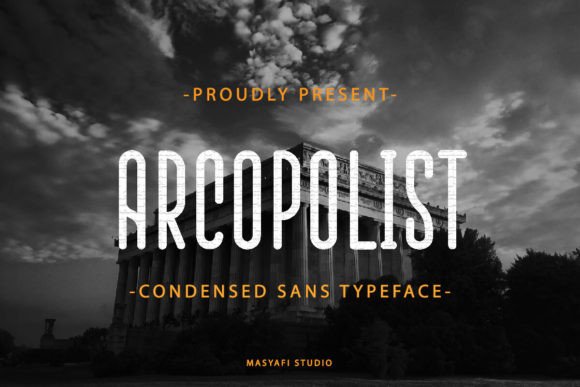
**Arcopolist: Your Font for Unforgettable Impact**
In a world where ordinary fonts fade into the background, Arcopolist emerges as a beacon of boldness and distinction. This condensed Sans Typeface, crafted with meticulous care by Masyafi Studio, empowers you to create captivating designs that leave a lasting impression.
**A Condensed Masterpiece**
Arcopolist's condensed form grants you the power to convey your message with maximum impact in limited spaces. Its characters stand tall and proud, commanding attention and ensuring your words resonate with unwavering clarity.
**Vintage Charm with a Modern Touch**
Arcopolist seamlessly blends the allure of the past with the vitality of the present. Its gentle curves evoke a sense of nostalgia, while its sharp angles lend a touch of modernity. This font is not merely a typeface; it's a timeless masterpiece that transcends trends.
**Manly and Unforgettable**
There's a quiet strength and confidence that radiates from Arcopolist. Its bold strokes and confident stance exude masculinity and authority, making it the perfect choice for designs that demand attention.
**The Perfect Font for Impactful Expressions**
Whether you're crafting inspiring quotes, eye-catching headlines, or captivating overlays, Arcopolist is your go-to font for creating designs that resonate. Its versatility extends to a wide range of applications, ensuring that your message will always stand out from the crowd.
**Experience the Arcopolist Advantage**
- Condensed form for maximum impact in limited spaces
- Vintage charm and modern touch for timeless appeal
- Manly and confident style for designs that demand attention
- Ideal for quotes, headlines, overlays, and more
- Versatile font for a wide range of applications